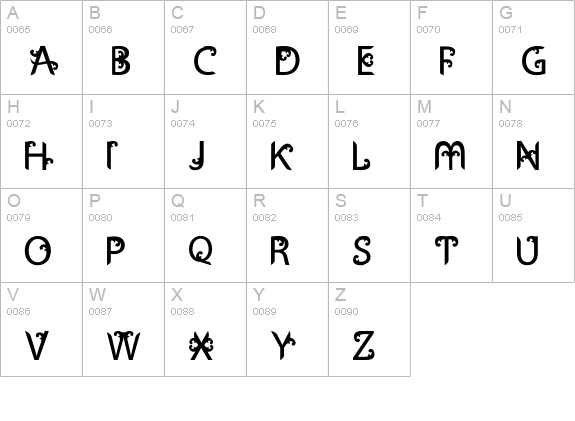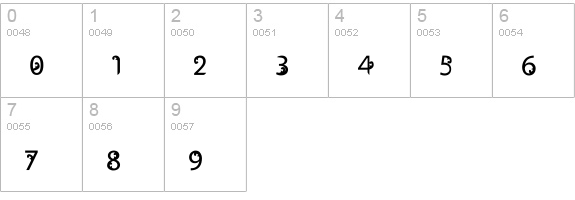
Ukiran Jawi Font Details
Ukiran Jawi font is a stunning and elegant typeface inspired by traditional Malay woodcarvings. Its intricate and decorative design captures the essence of Malaysian culture and heritage. The graceful curves and intricate details of this font make it perfect for adding a touch of sophistication to any project. What makes Ukiran Jawi font even more appealing is that it is available for free download at FontsMarket.com. This means you can easily access this beautiful font and use it in your designs without any cost. Whether you are working on a branding project, creating invitations, or designing posters, Ukiran Jawi font will surely make your work stand out with its unique and artistic flair. Download this exquisite font today and add a touch of Malaysian charm to your projects.